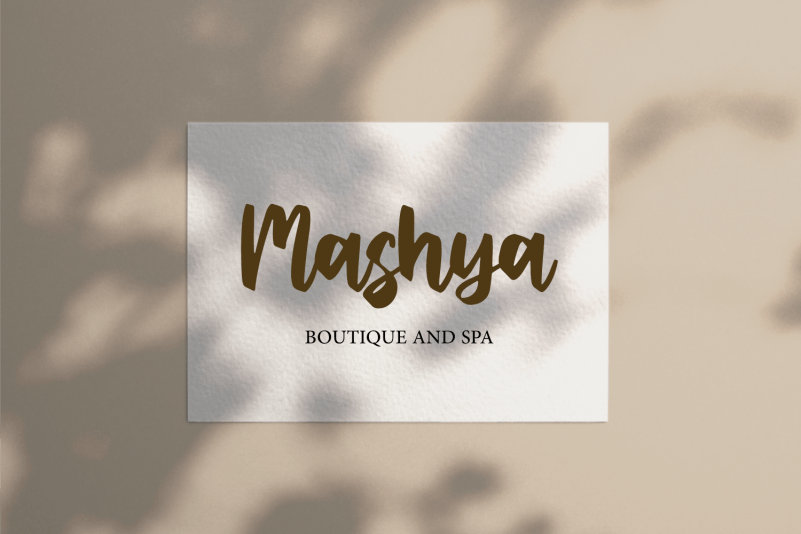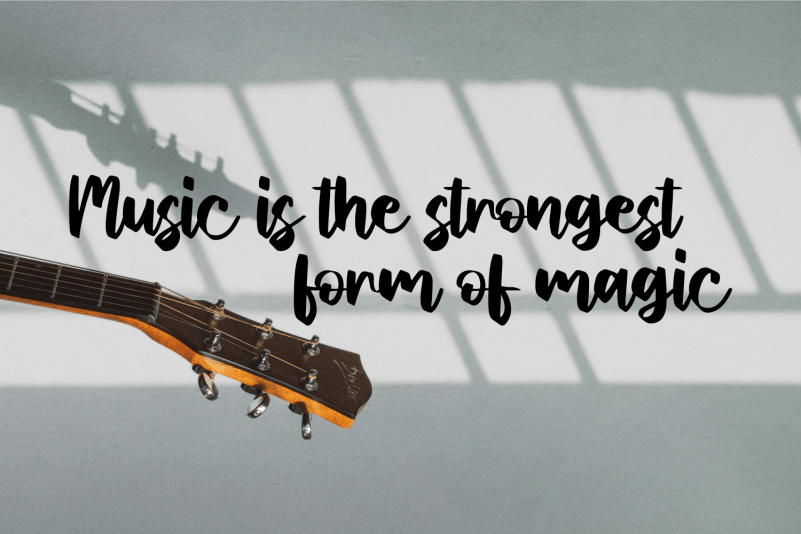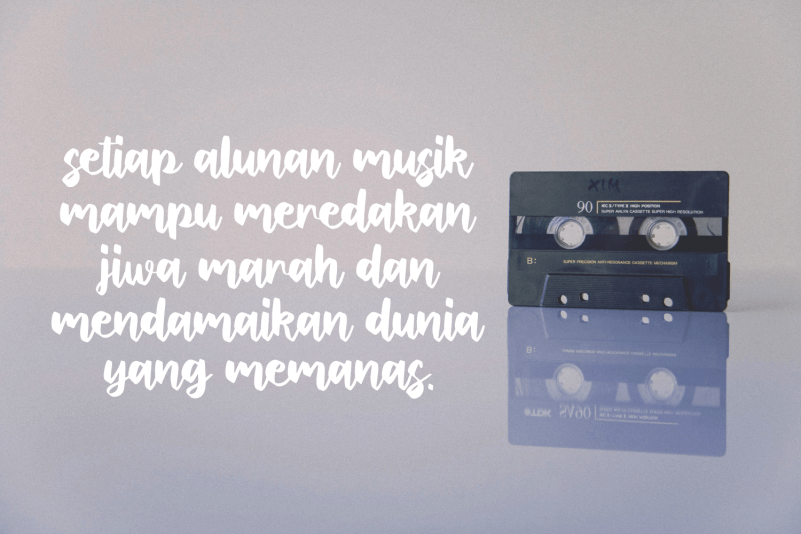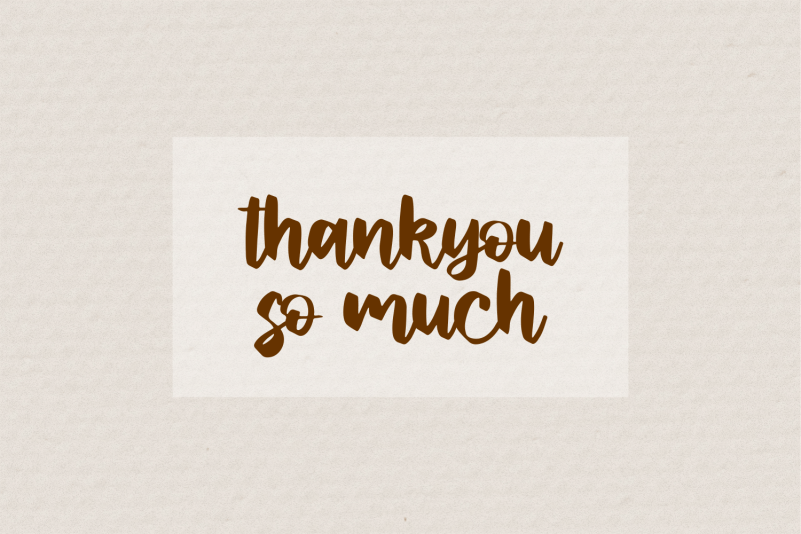
Sabian Valent Font
Sabian Valent Script Font is a stylish and incredibly elegant script font. It looks stunning on wedding invitations, thank you cards, quotes, greeting cards, logos, business cards and every other design which needs a handwritten touch.